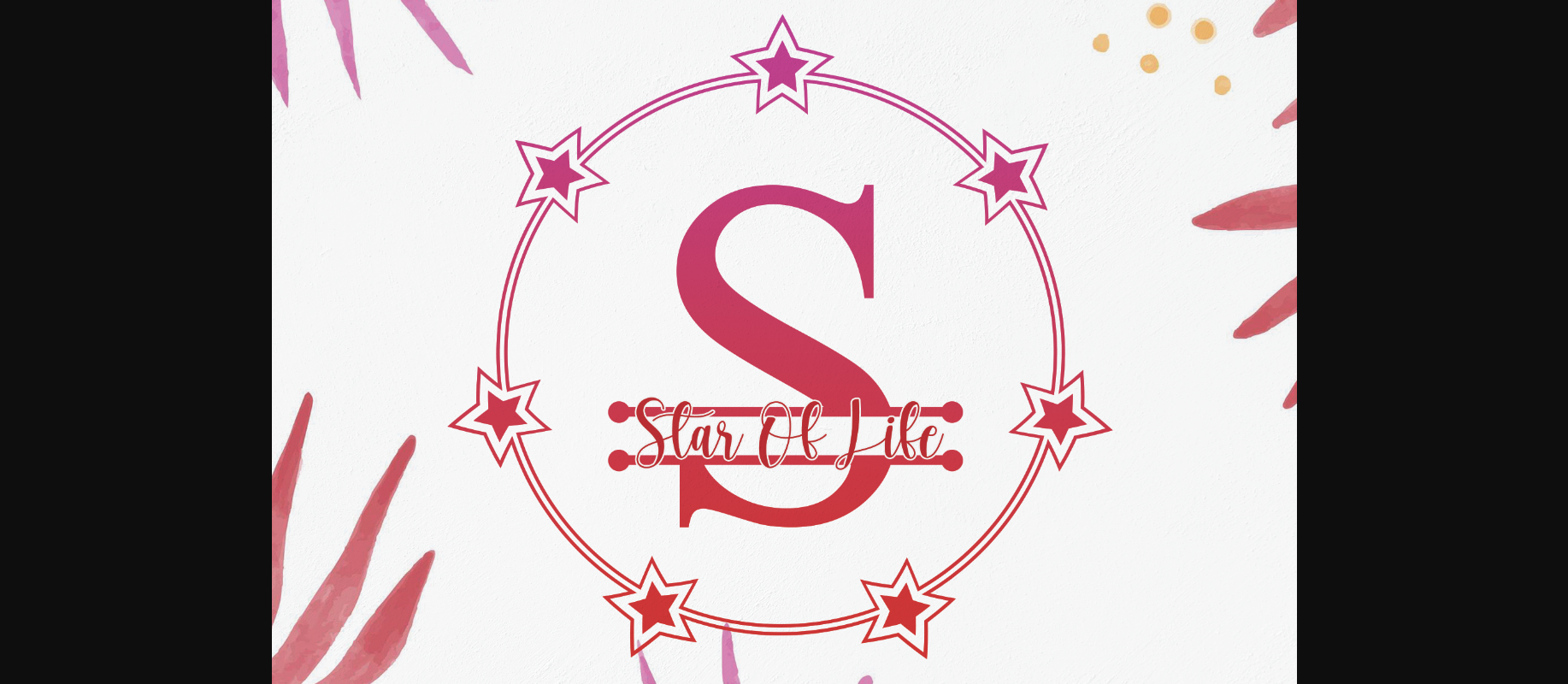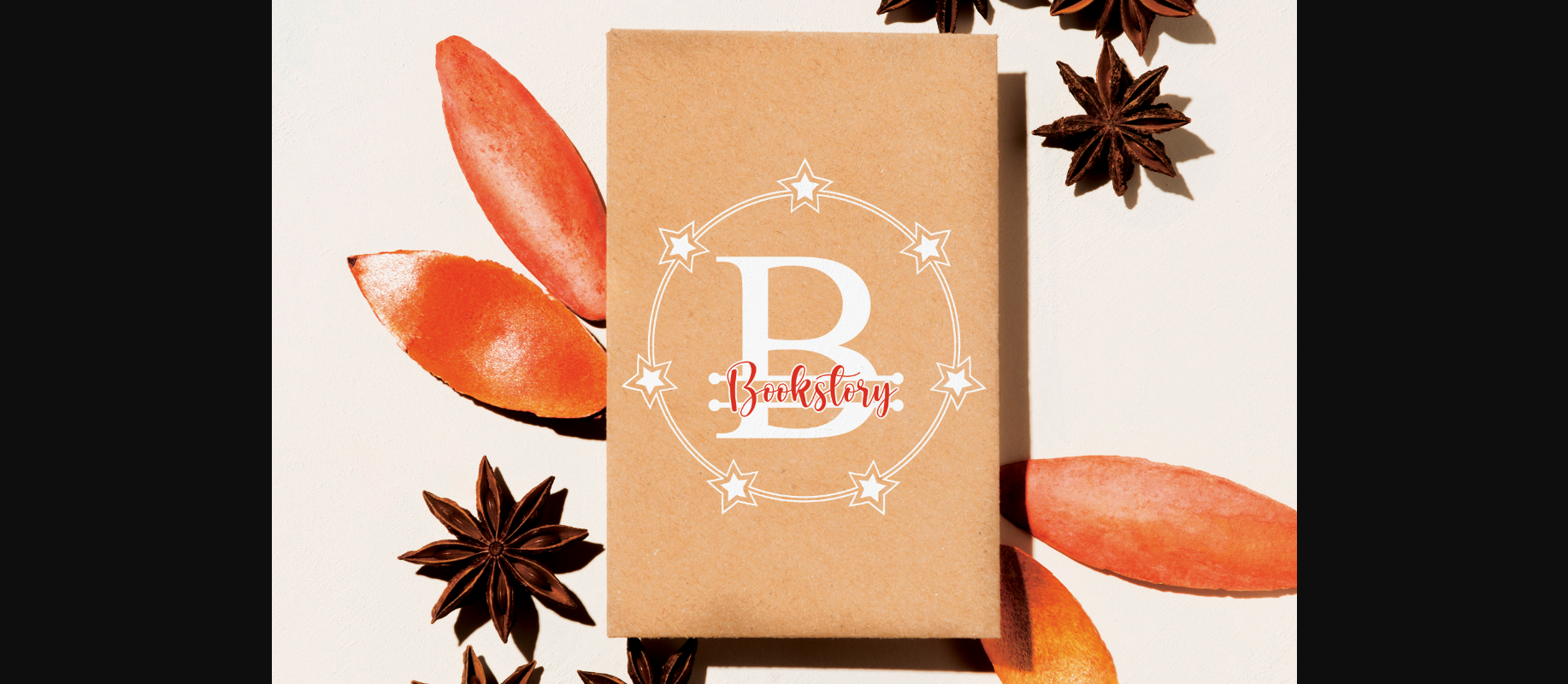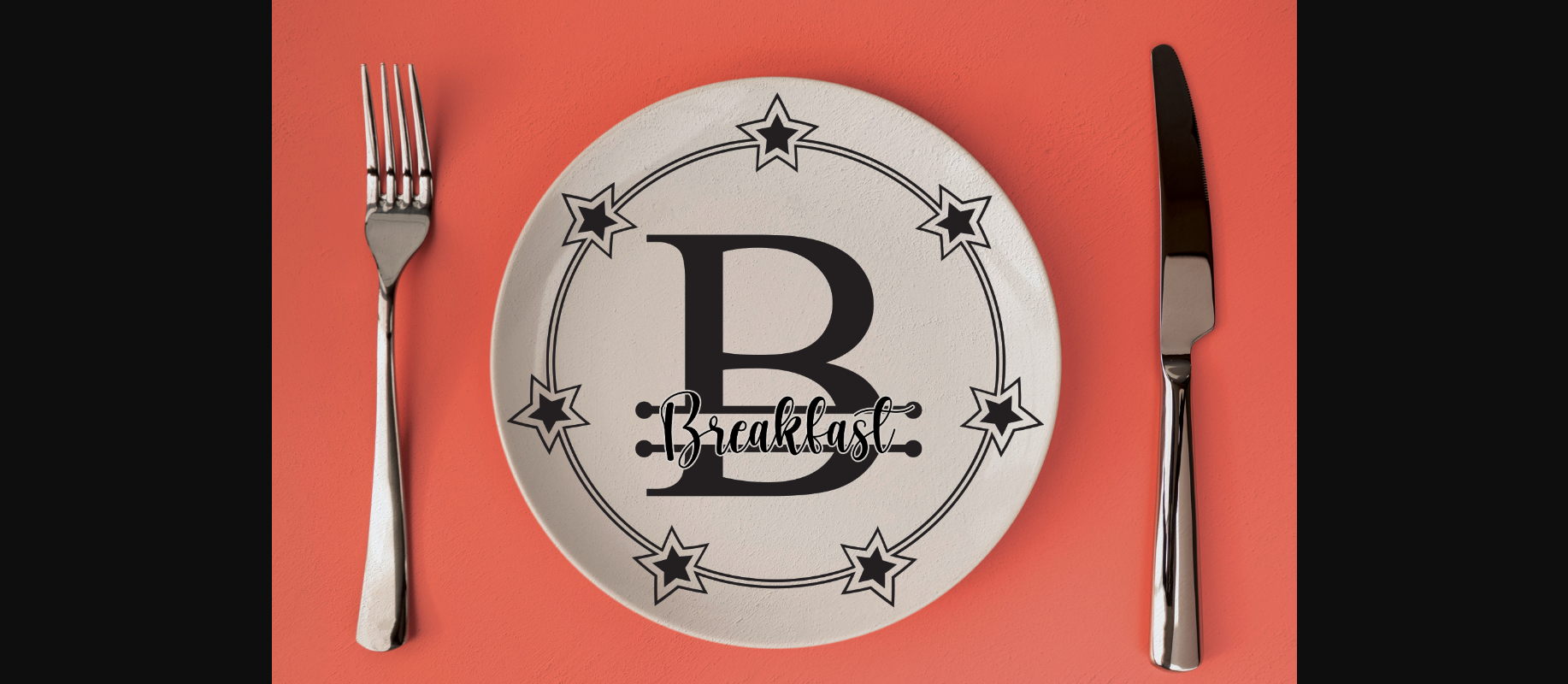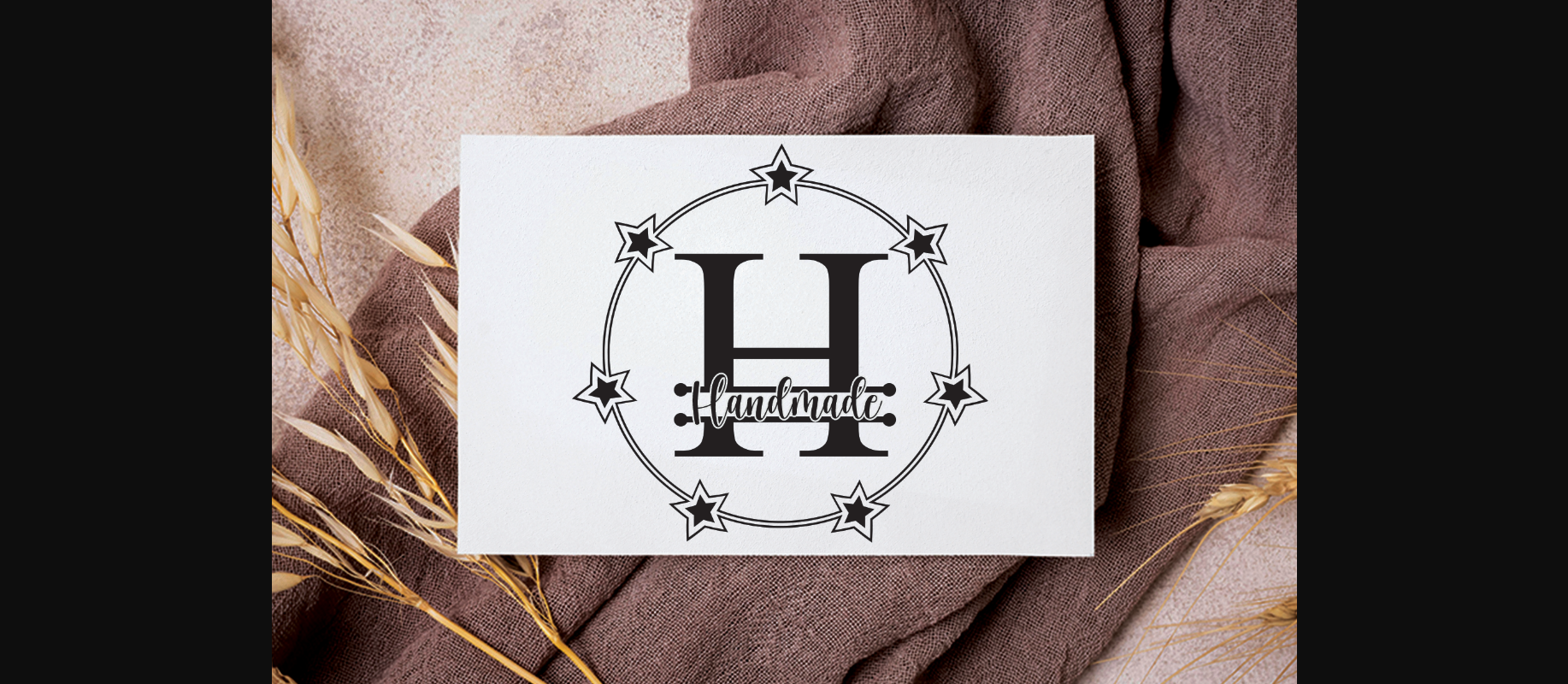
Star of Life Font
About Star of Life Font
Star of Life is an exquisite decorative font. Add this beautiful looking font to each of your love letters, wedding invitations or favorite design ideas, and you will be astounded by the outcome.